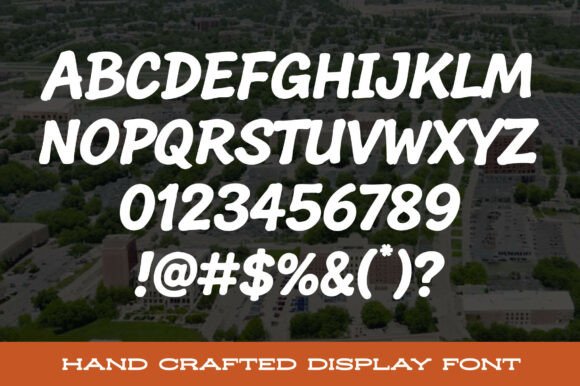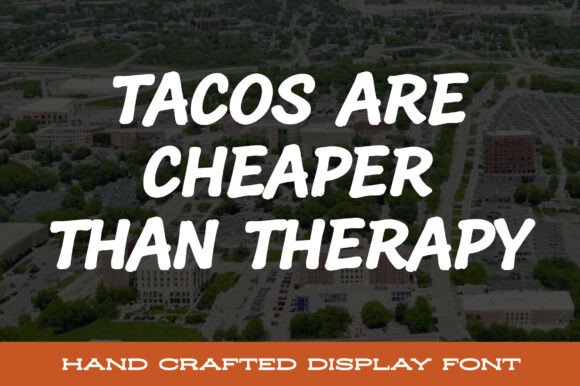
Bloomington Font: A Hand-Brused Display Font with Personality
In the world of typography, fonts play a crucial role in conveying the tone and personality of a brand or design. For designers and crafters looking to add a touch of authenticity and creativity to their work, the Bloomington Font is an excellent choice. This hand-brushed display font is bursting with personality, making it perfect for posters, branding, packaging, and any project that needs a handcrafted punch.
The Characteristics of Bloomington Font
Bloomington Font is a unique and eye-catching font that stands out from the crowd. Each stroke feels alive, with bold, fluid, and full of character, giving your words an authentic, creative energy. The font’s hand-brushed texture adds a touch of imperfection, making it look like it was crafted by hand. This distinctive feature sets Bloomington Font apart from more traditional fonts and gives it a one-of-a-kind charm.
Bloomington Font is ideal for designers and crafters who want to add a personal touch to their work. Whether you’re creating posters, flyers, brochures, or social media graphics, this font is sure to make your design stand out. Its bold and fluid strokes make it perfect for headlines, titles, and short phrases, while its hand-brushed texture adds a touch of warmth and personality to your text.
Branding and Packaging
For brands looking to create a unique and memorable identity, Bloomington Font is an excellent choice. Its handcrafted feel and authentic energy make it perfect for branding and packaging projects. Use it to create eye-catching labels, product packaging, or business cards that reflect your brand’s personality and values.
Tips for Using Bloomington Font
To get the most out of Bloomington Font, here are a few tips to keep in mind:
- Use it sparingly: Bloomington Font is a bold and attention-grabbing font, so use it sparingly to avoid overwhelming your design.
- Pair it with a neutral font: Pair Bloomington Font with a neutral font to create contrast and balance in your design.
- Experiment with colors: Bloomington Font looks great in a variety of colors, so don’t be afraid to experiment and find the perfect hue for your design.
Why Choose Bloomington Font?
So why choose Bloomington Font over other fonts? Here are just a few reasons:
- Unique and eye-catching: Bloomington Font is a one-of-a-kind font that is sure to grab attention.
- Handcrafted feel: The font’s hand-brushed texture gives it a warm and authentic energy.
- Versatile: Bloomington Font is perfect for a variety of design projects, from posters and branding to packaging and social media graphics.
In conclusion, Bloomington Font is a hand-brushed display font that is bursting with personality. Its bold, fluid, and full of character strokes make it perfect for designers and crafters looking to add a touch of authenticity and creativity to their work. With its handcrafted feel and versatile nature, Bloomington Font is an excellent choice for a variety of design projects. So why settle for a ordinary font when you can make a statement with Bloomington Font?
Whether you’re a designer, crafter, or simply someone who appreciates great typography, Bloomington Font is definitely worth checking out. Its unique charm and character are sure to inspire your creativity and take your designs to the next level.